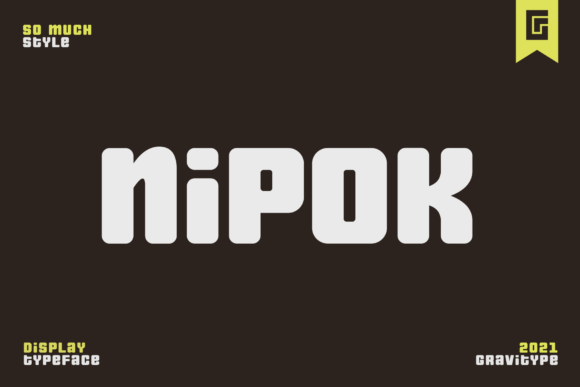
Welcome to the realm of visual enchantment, where Nipok Font reigns supreme, a display typeface that will transform your designs into masterpieces. This font is a symphony of styles, drawing inspiration from the swinging '60s and '70s, with its rounded terminals and playful intersections, seamlessly blended with the sleek, compact lines of the '80s and '90s.
Nipok Font is more than just a font; it's a gateway to a world of creative possibilities. Its unique style lies in the harmonious interplay of upper and lower case letters, carefully crafted to fill empty spaces and create a visual equilibrium that captivates the eyes. With a generous selection of alternates, Nipok Font empowers you to explore a myriad of stylistic variations, adding depth and personality to your designs.
Unleash your inner artist and let Nipok Font take center stage in your projects. This font is a match made in heaven for vogue magazine covers, exuding an air of sophistication and glamour that will make your designs shine. Its versatility extends far beyond magazine covers, making it an ideal choice for branding, logos, posters, and any project where you seek to leave an indelible mark.
With Nipok Font at your fingertips, you'll never settle for ordinary again. Its distinctive charm will elevate your designs, making them stand out from the crowd and leave a lasting impression. This font is your passport to a world of creativity, where boundaries are shattered and imagination knows no limits.
Don't resist the allure of Nipok Font; embrace its transformative power and watch as your designs blossom into works of art. Experience the magic of Nipok Font today and embark on a journey of visual storytelling that will leave you breathless.